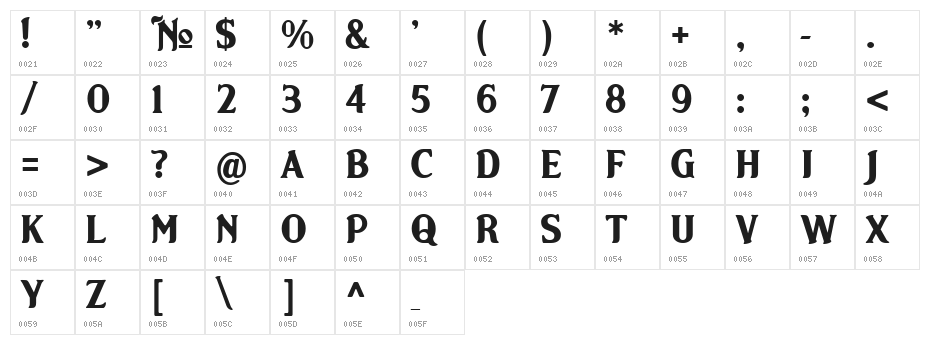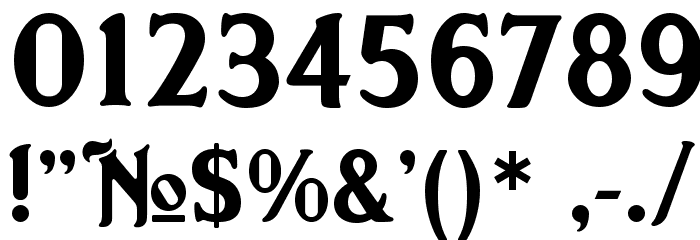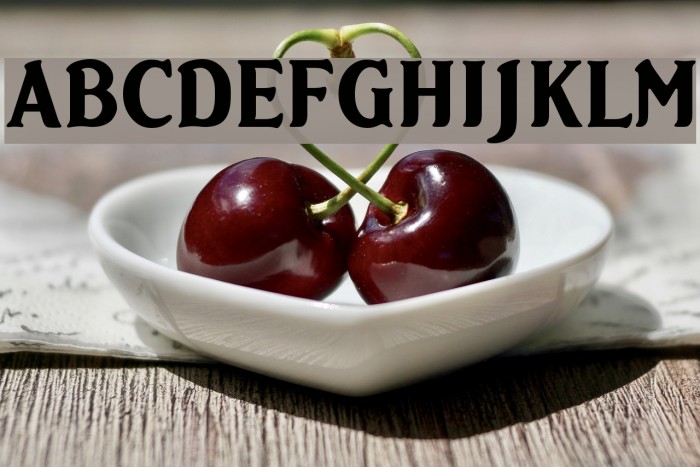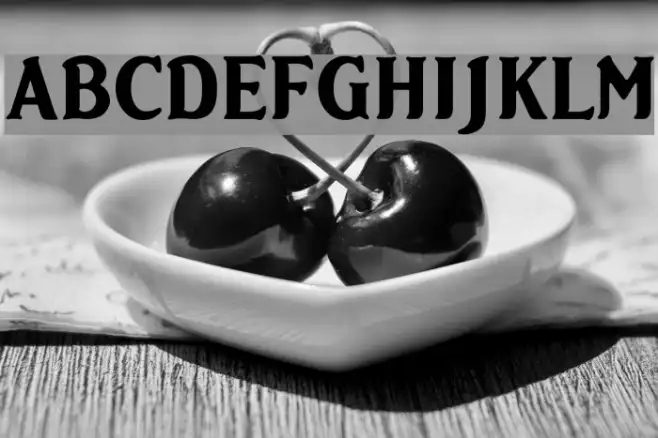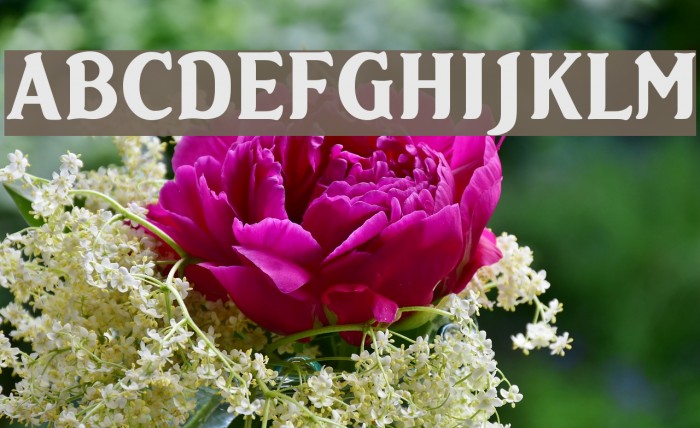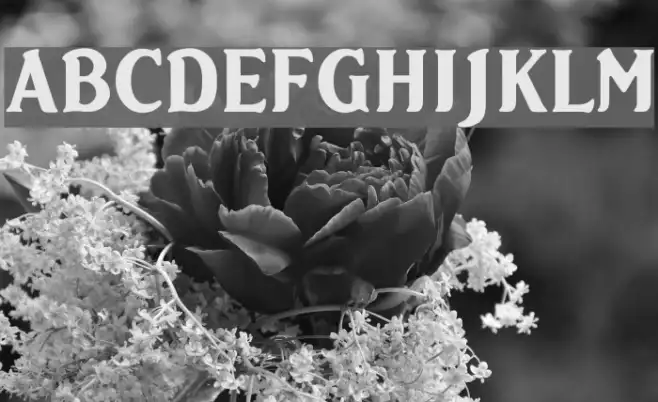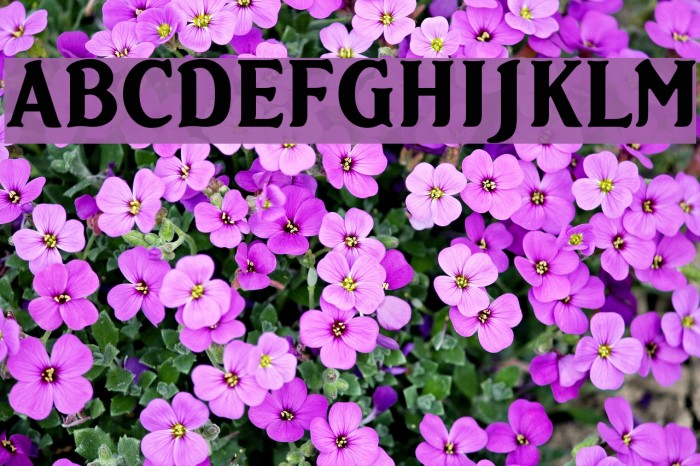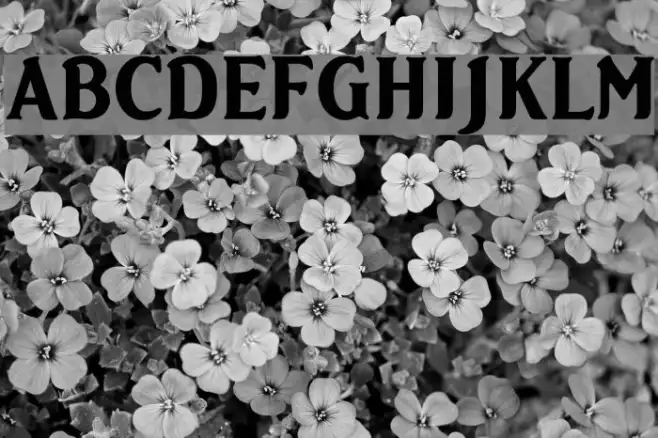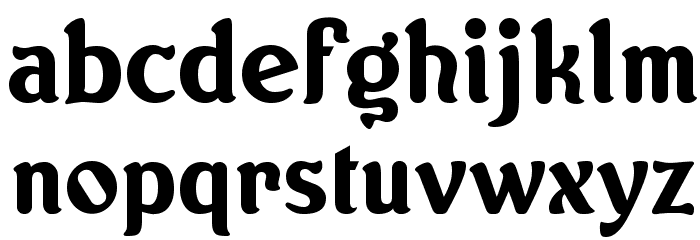
Norton Font
Norton Description
This font exhibits a bold and robust serif style, characterized by thick strokes and pronounced serifs that give it a strong and authoritative presence. The uppercase letters are particularly striking, with a classic and slightly vintage feel, while the lowercase letters maintain a consistent weight and balance. The numerals are clear and bold, ensuring readability. Special characters are well-integrated, maintaining the overall aesthetic of the font. The design is versatile, suitable for both traditional and modern applications, making it ideal for projects that require a touch of elegance and strength.
| Overall Style | Classic |
| Use Case | Headlines, Logos, Editorial design |
| Proposed Projects | Ideal for book covers, headlines, branding, and editorial design. |